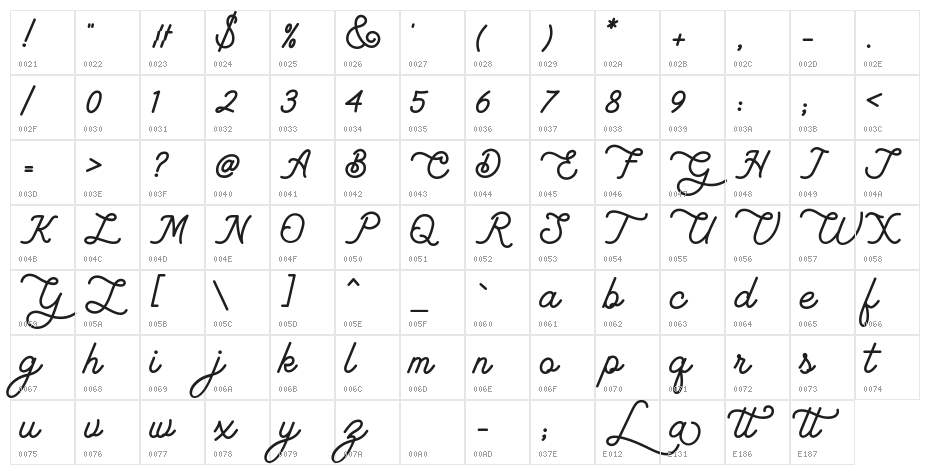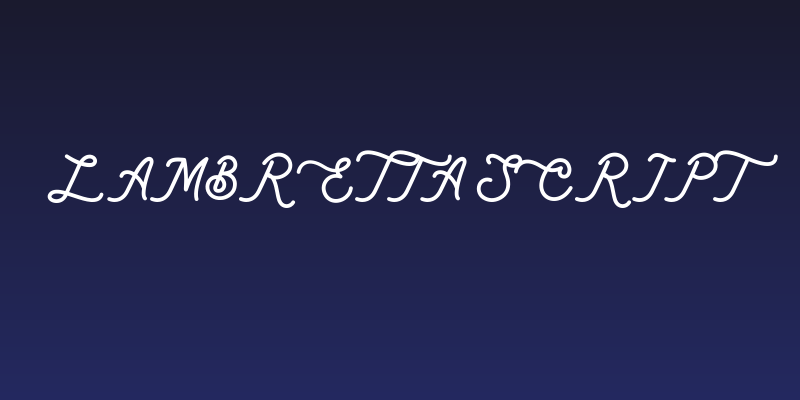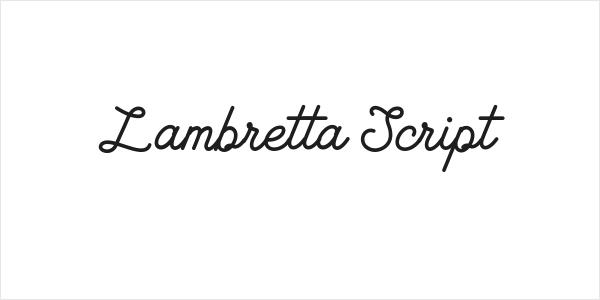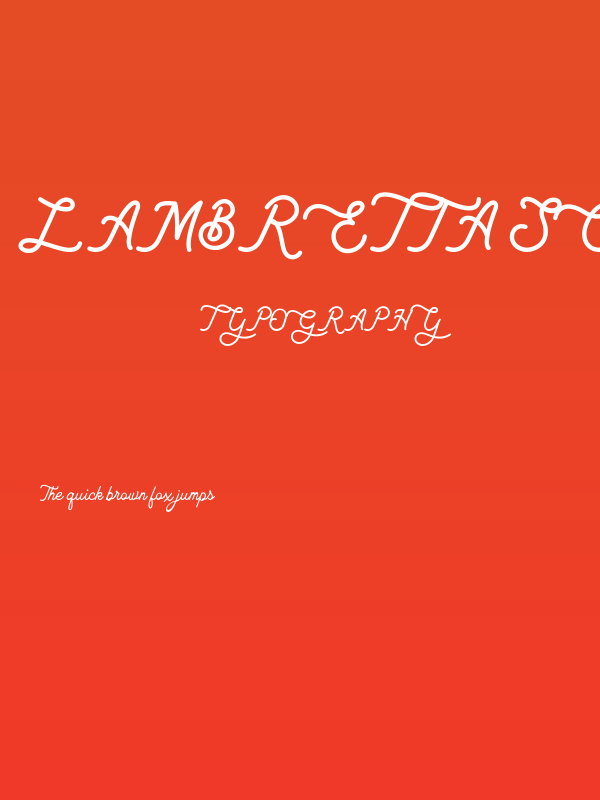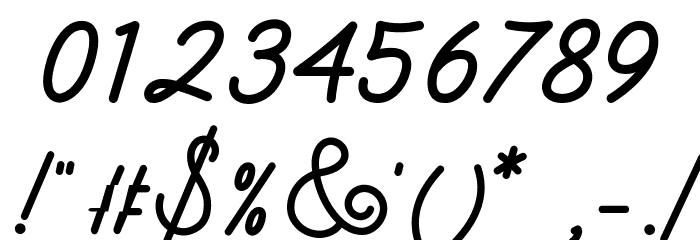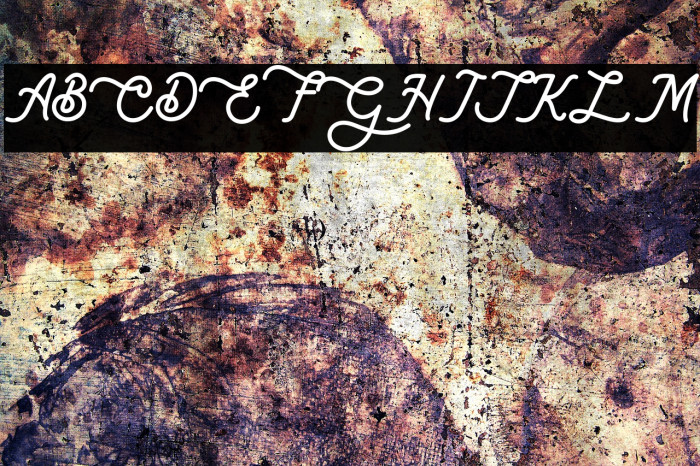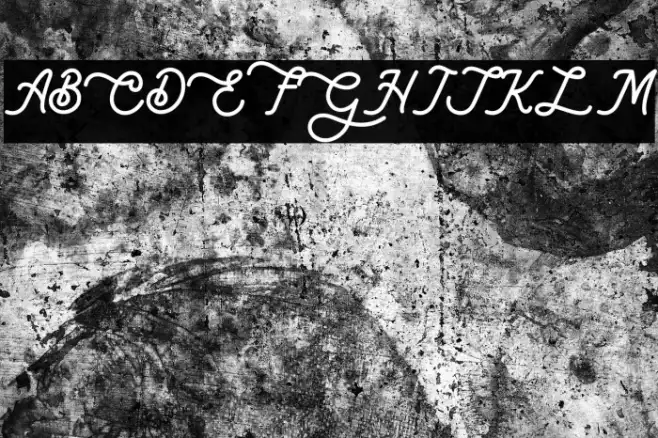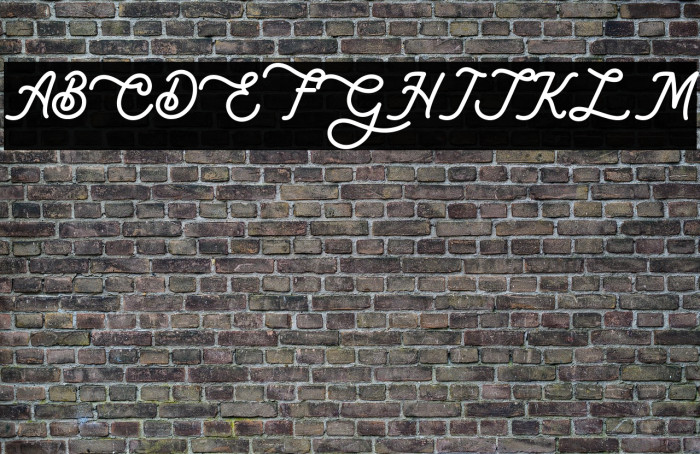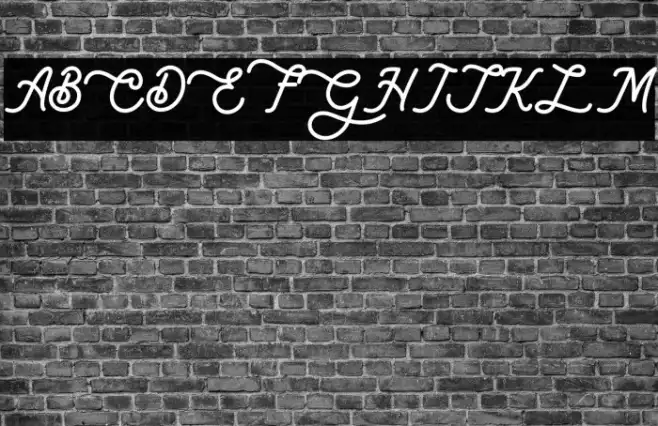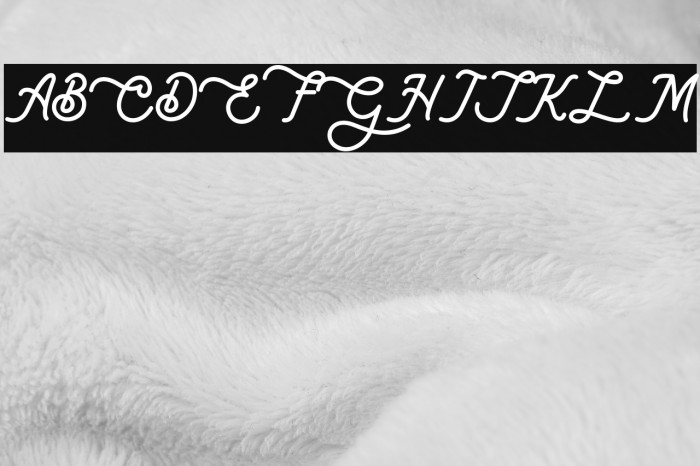
Lambretta Script Font
Lambretta Script Description
This font features a flowing, cursive style that exudes elegance and sophistication. The characters are interconnected, creating a seamless and fluid appearance. The uppercase letters maintain a consistent height, while the lowercase letters exhibit a gentle slant, enhancing the script's graceful nature. The numerals are designed to match the script's overall aesthetic, with smooth curves and a balanced structure. Special characters are thoughtfully integrated, maintaining the font's cohesive look. The font's design is ideal for projects that require a touch of class and refinement, such as wedding invitations, elegant branding, or high-end product packaging.
| Proposed Projects | Wedding invitations, elegant branding, high-end product packaging, personal stationery. |